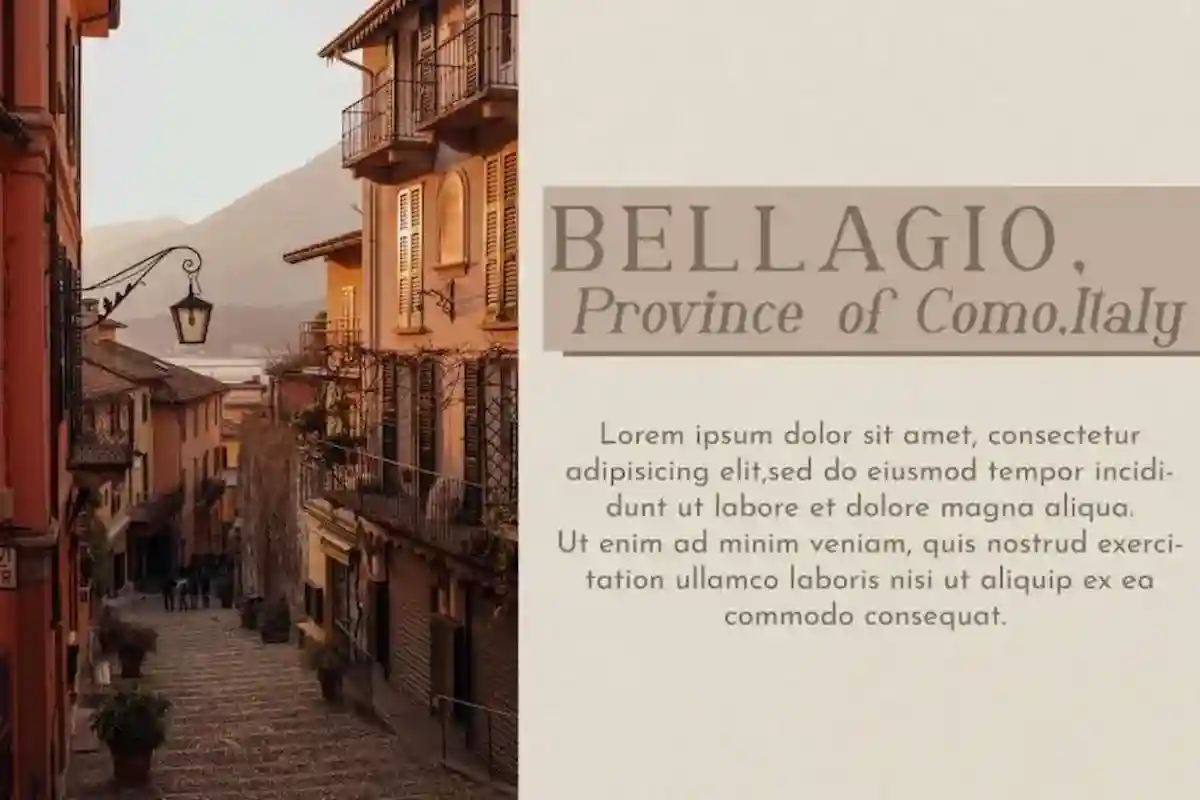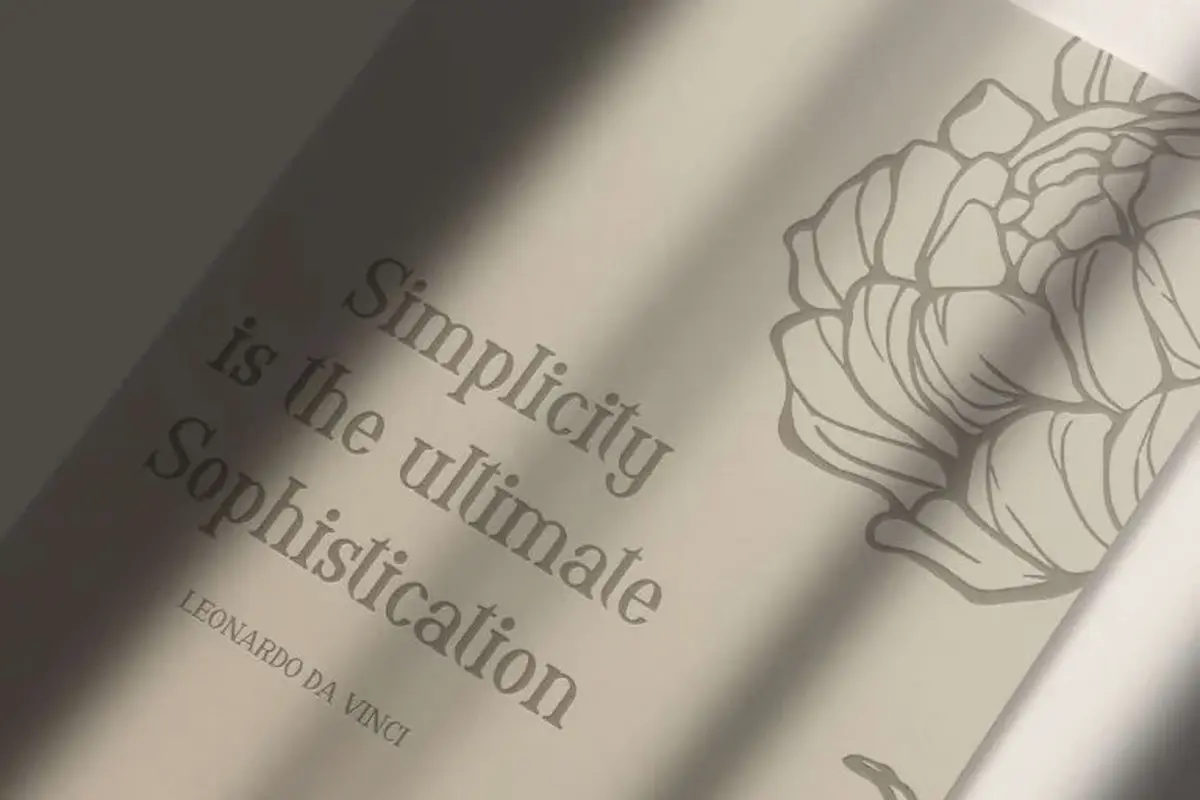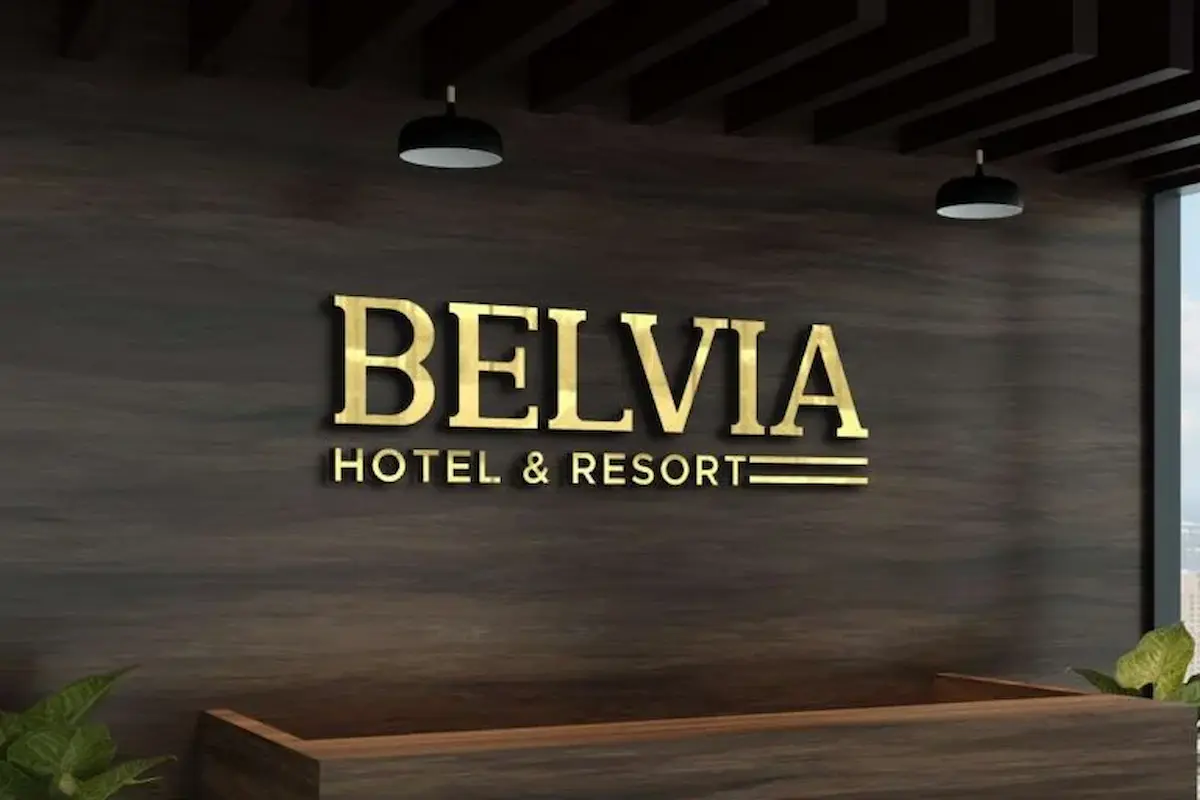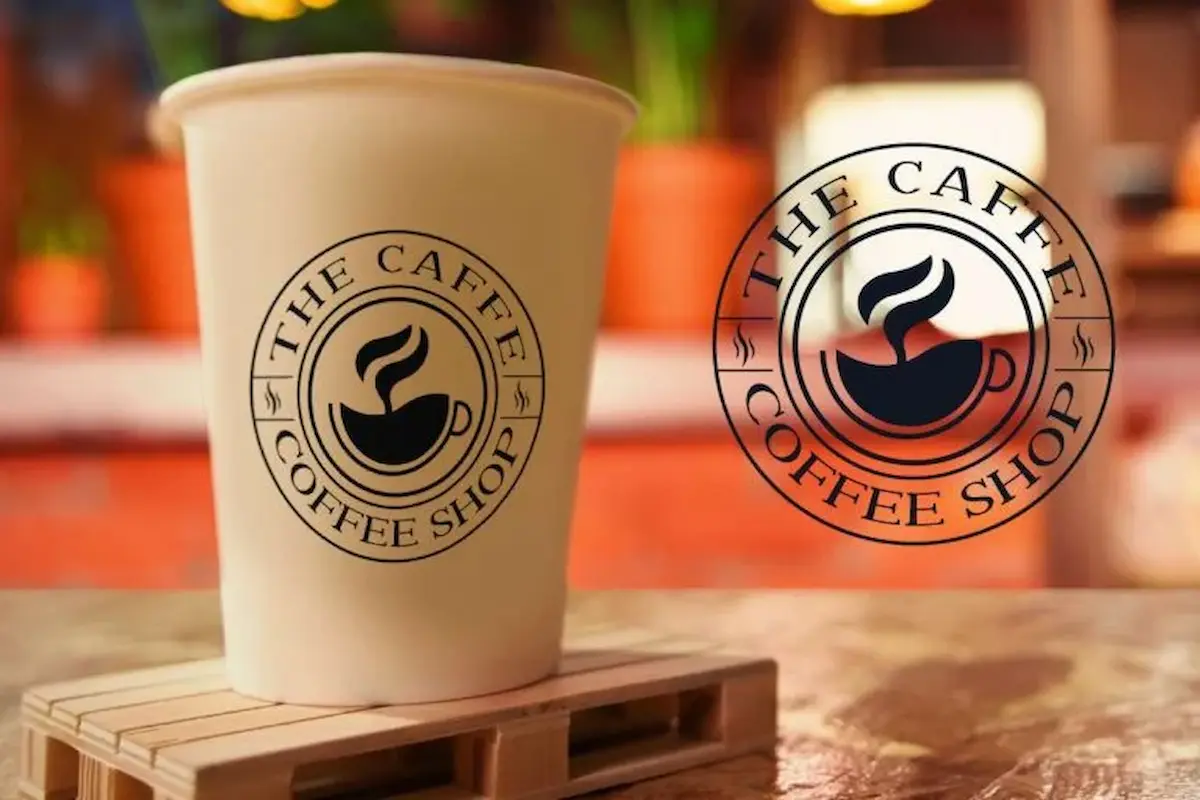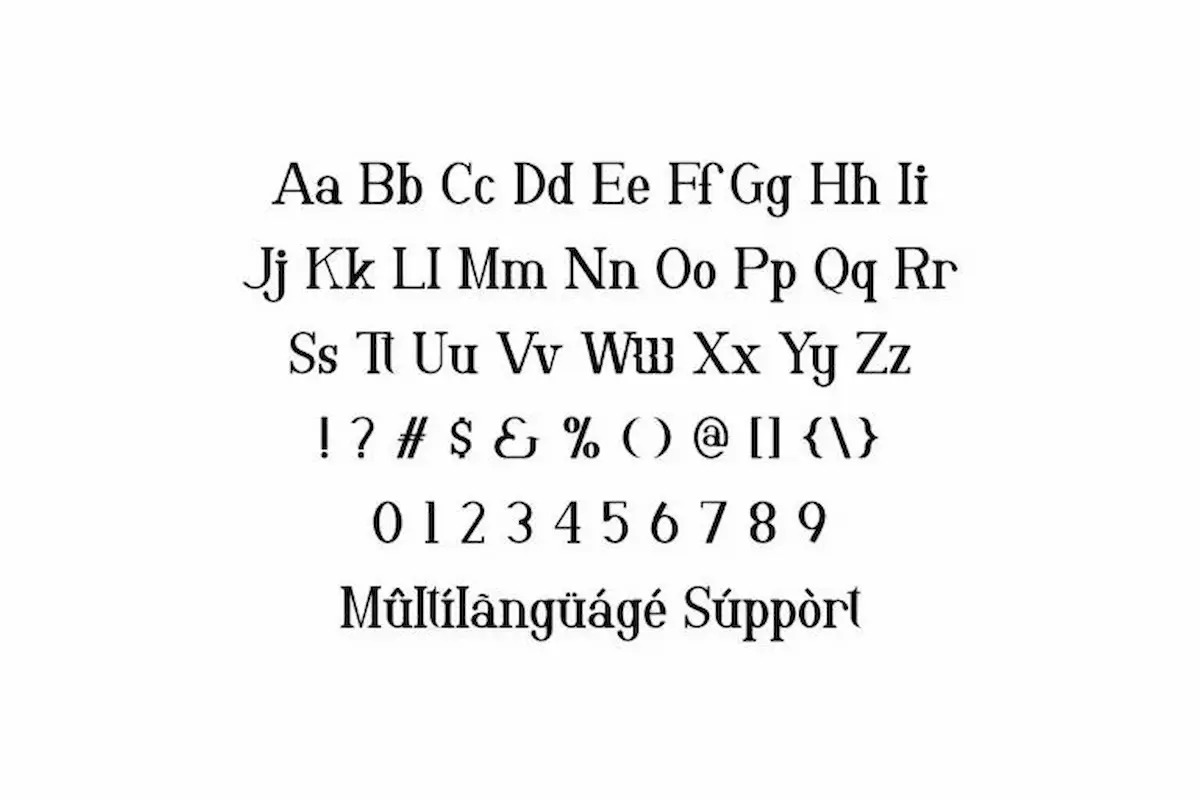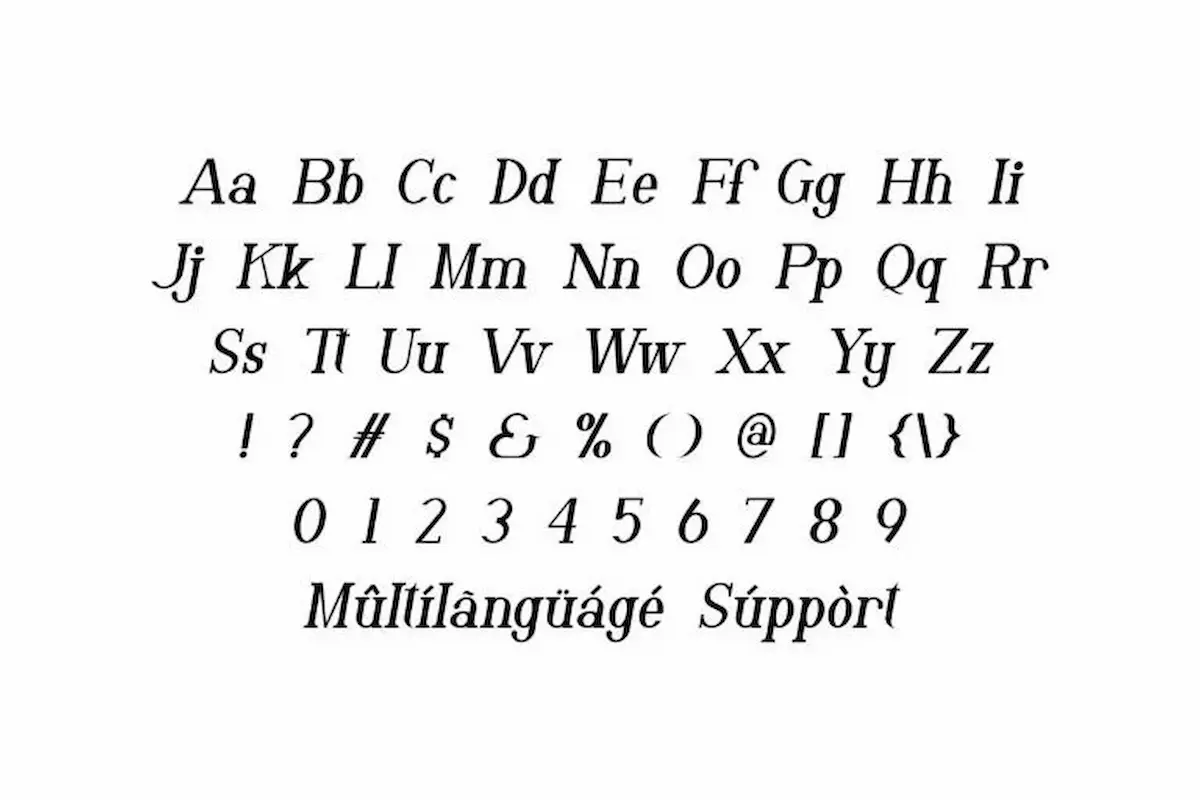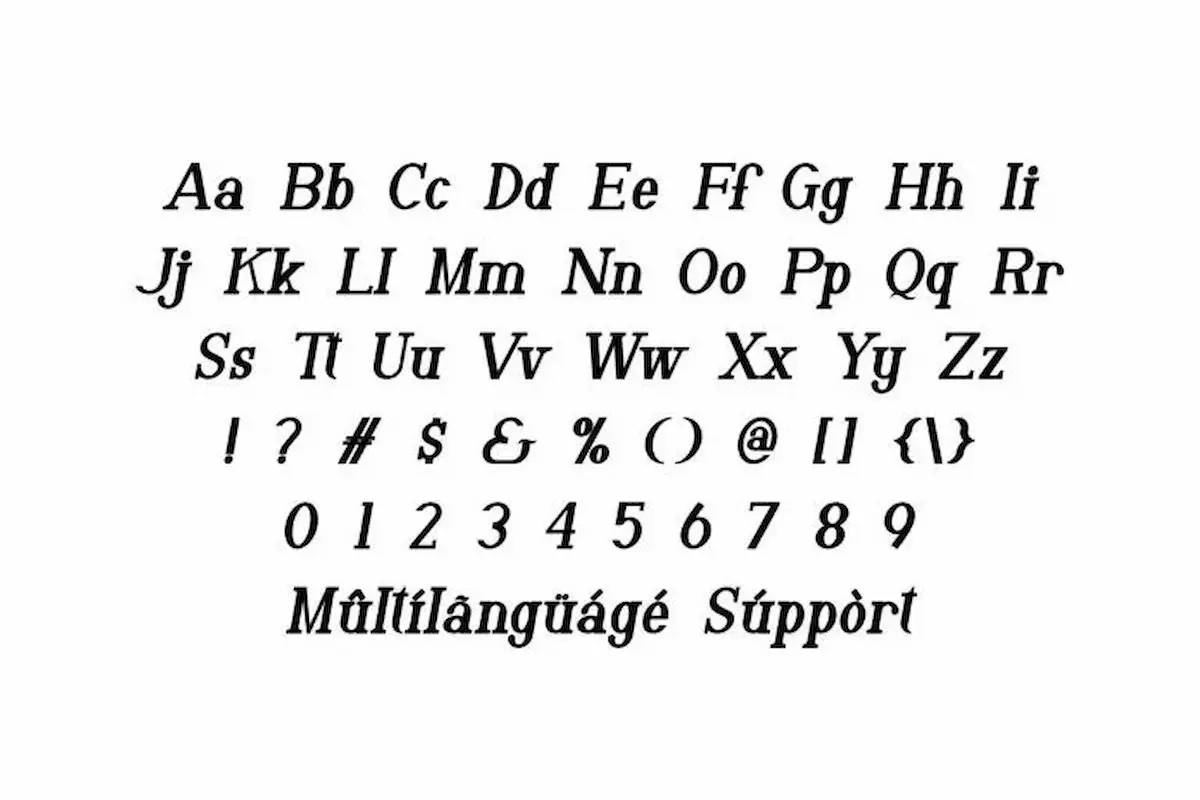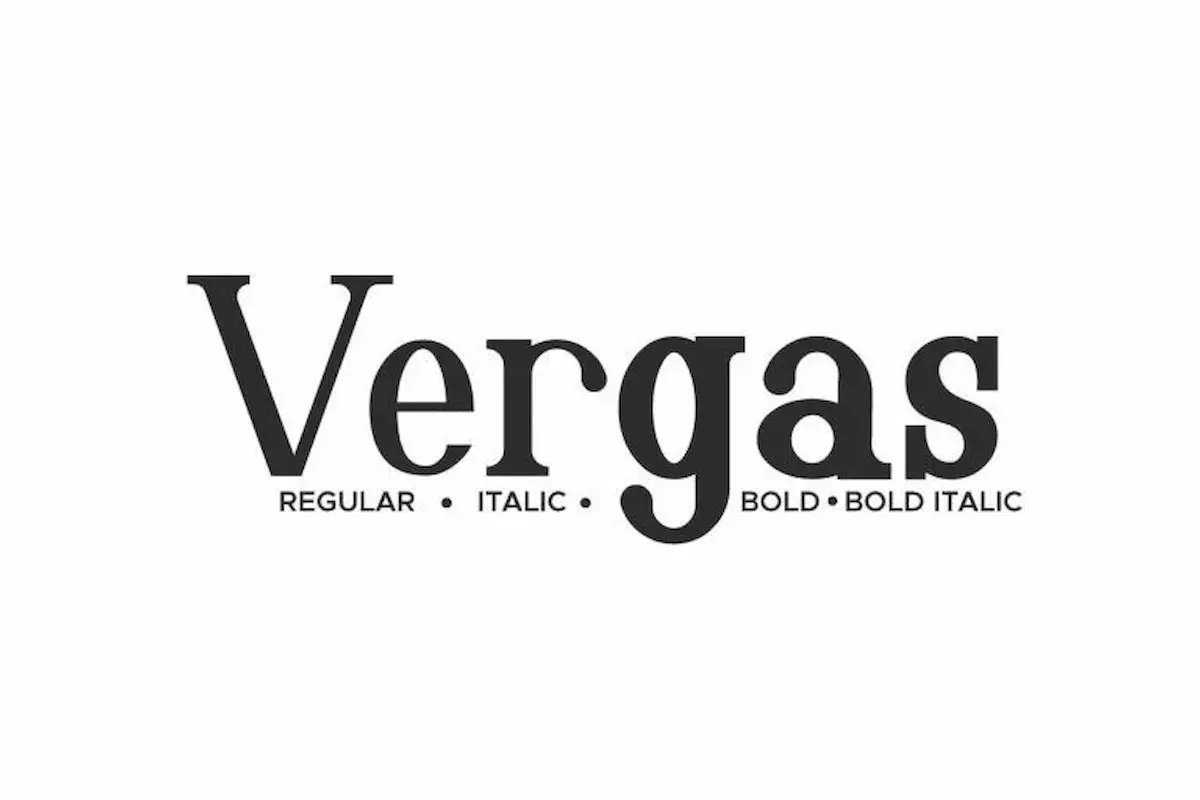
Vergas Font is a modern serif font by NihStudio, made in 2021. Vergas Font will be great for fashion, technology, magazine, futuristic or modern projects.
Vergas Font will be great for any projects (require extended license) including : branding, logo, stationery, business card, signage, flyer, brochure etc. Handcrafted here in Indonesia, Vergas Font comes with four styles : Regular, Bold, Italic and Bold Italic.